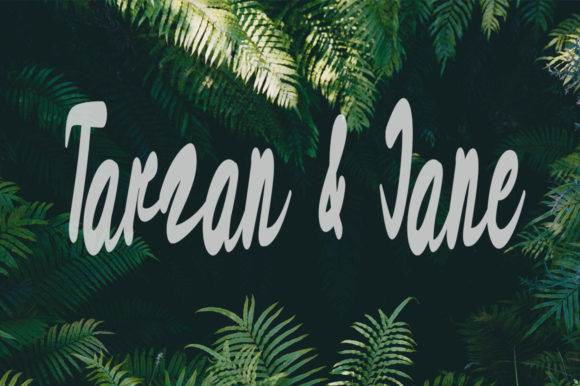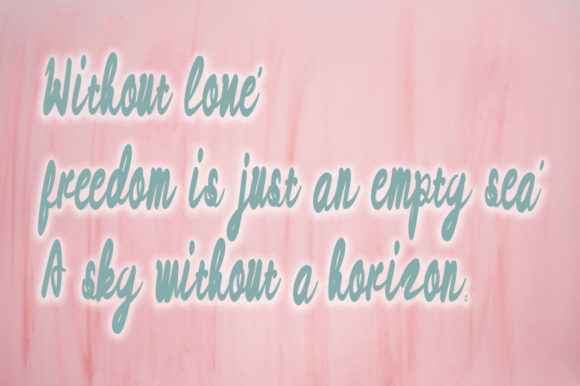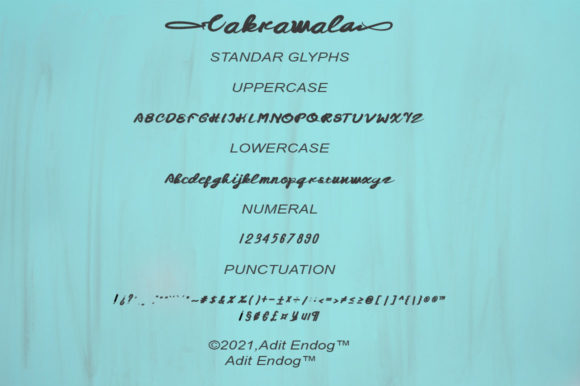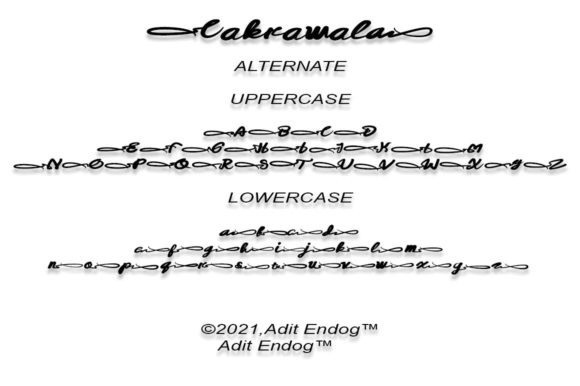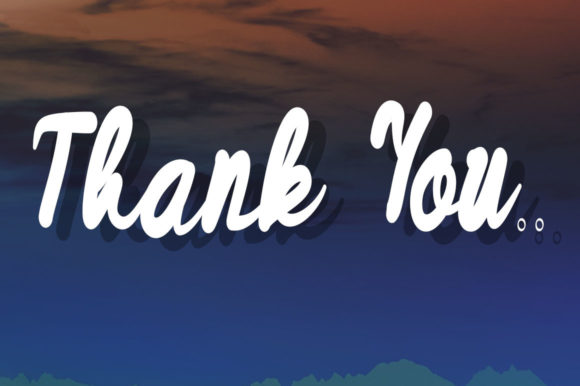
The Designer’s Delight: A Deep Dive into Cakrawala Font
I’ll never forget the time I was working on a fashion branding project, and my client asked me to create a logo that exuded elegance and sophistication. I scoured the internet for the perfect font, but nothing seemed quite right. That was until I stumbled upon Cakrawala Font. This beautiful, vintage-styled script font has been a game-changer for me, and I’m excited to share my experience with you.
An Honest Review of Cakrawala Font
• ✨ Smooth curves and a well-balanced design that screams elegance
• ✅ PUA encoded, making it easy to access all glyphs and swashes
• 🎉 Perfect for fashion branding, editorial designs, and any project that requires a touch of sophistication
• 💻 Highly versatile and works well in various design applications
While Cakrawala Font is an amazing font, there are a few things to keep in mind:
• ⚠️ Some users may find the font a bit too ornate for certain projects
• 🤔 Limited use of uppercase letters, but the font’s beauty shines in its lowercase letters
The Backstory of Cakrawala Font
Cakrawala Font was designed with the intention of creating a beautiful, elegant script font that would be perfect for fashion branding and editorial designs. The designer drew inspiration from vintage typography and aimed to create a font that was both classic and modern. While the designer’s identity may be unknown, their passion for typography and design is evident in every detail of Cakrawala Font.